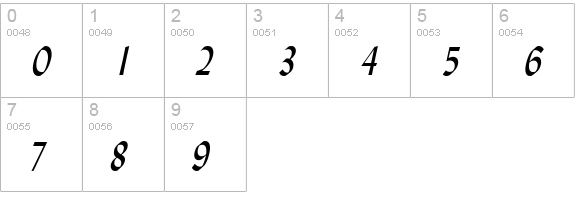
Lynda Condensed Italic is a distinctive, condensed-width, italic variant in the Lynda typeface family \xE2\x80\x94 well suited to design and typography projects.
Introducing Lynda Condensed Italic font, a sleek and stylish typeface that exudes elegance and sophistication. This condensed italic font is perfect for adding a touch of modernity to your designs while maintaining a classic aesthetic. The slanted letterforms create a sense of movement and dynamism, making it ideal for projects that require a sense of flair and creativity. What makes Lynda Condensed Italic font even more appealing is that it is available for free download at FontsMarket.com. This means you can easily access and use this beautiful font in your projects without any cost involved. Whether you are designing a logo, creating marketing materials, or working on a personal project, Lynda Condensed Italic font is sure to elevate your designs to the next level. Download it today and unleash your creativity with this stunning typeface.